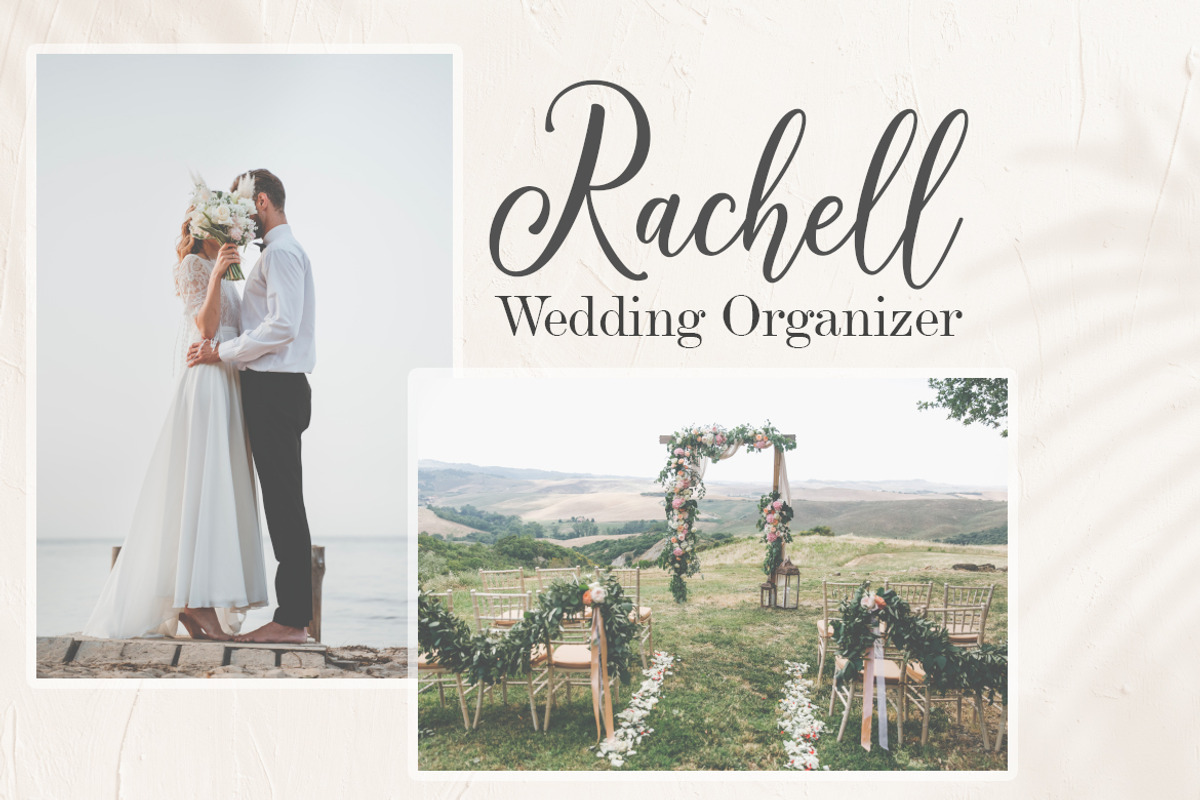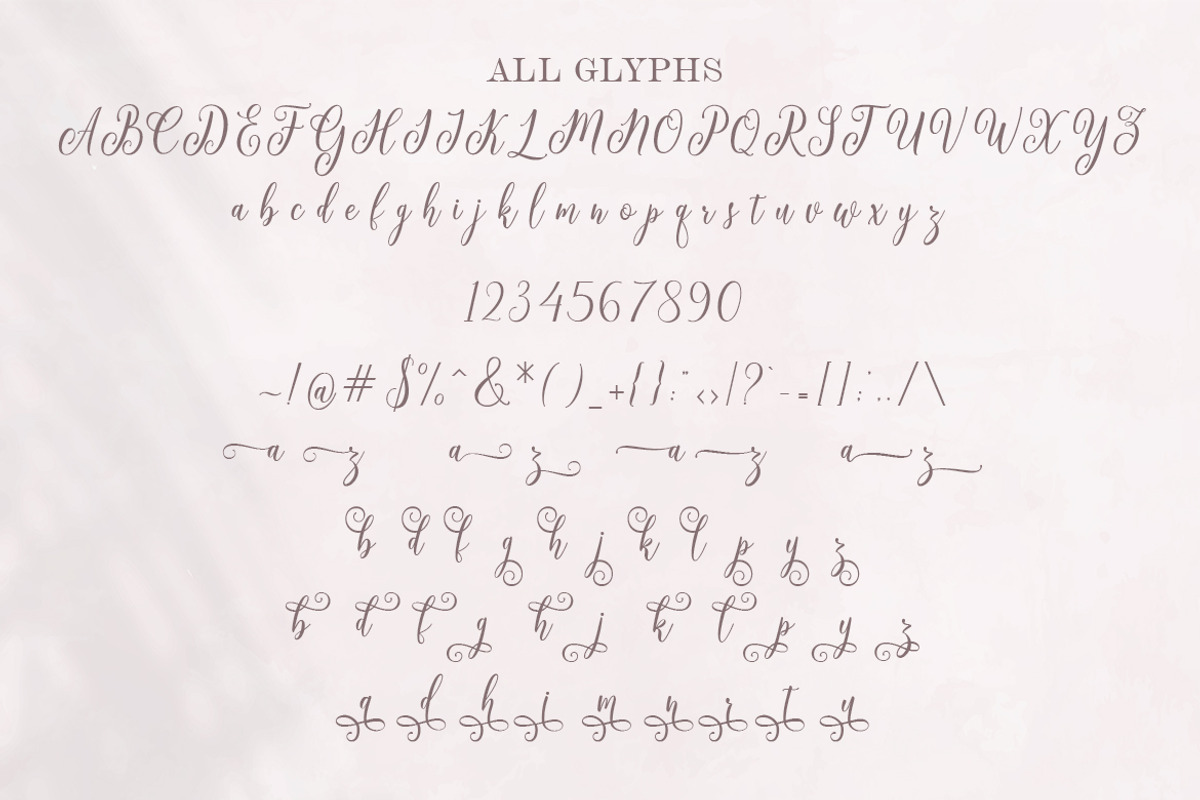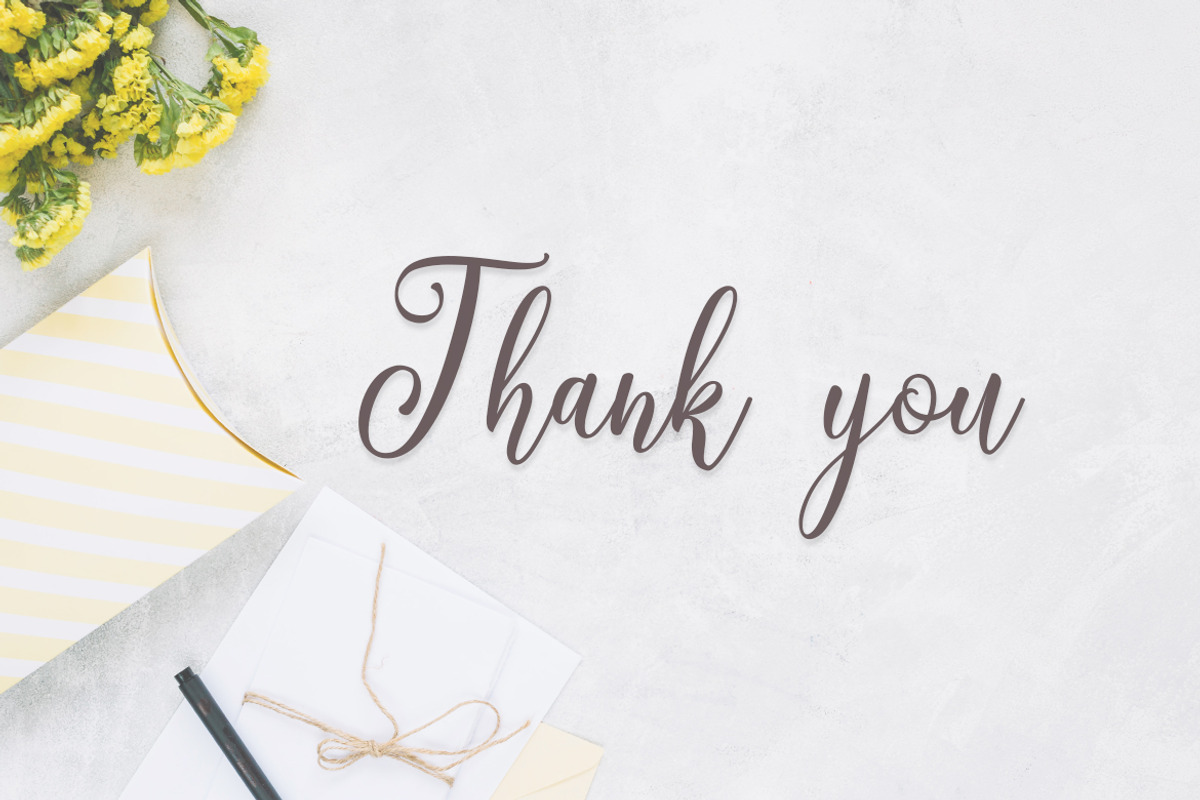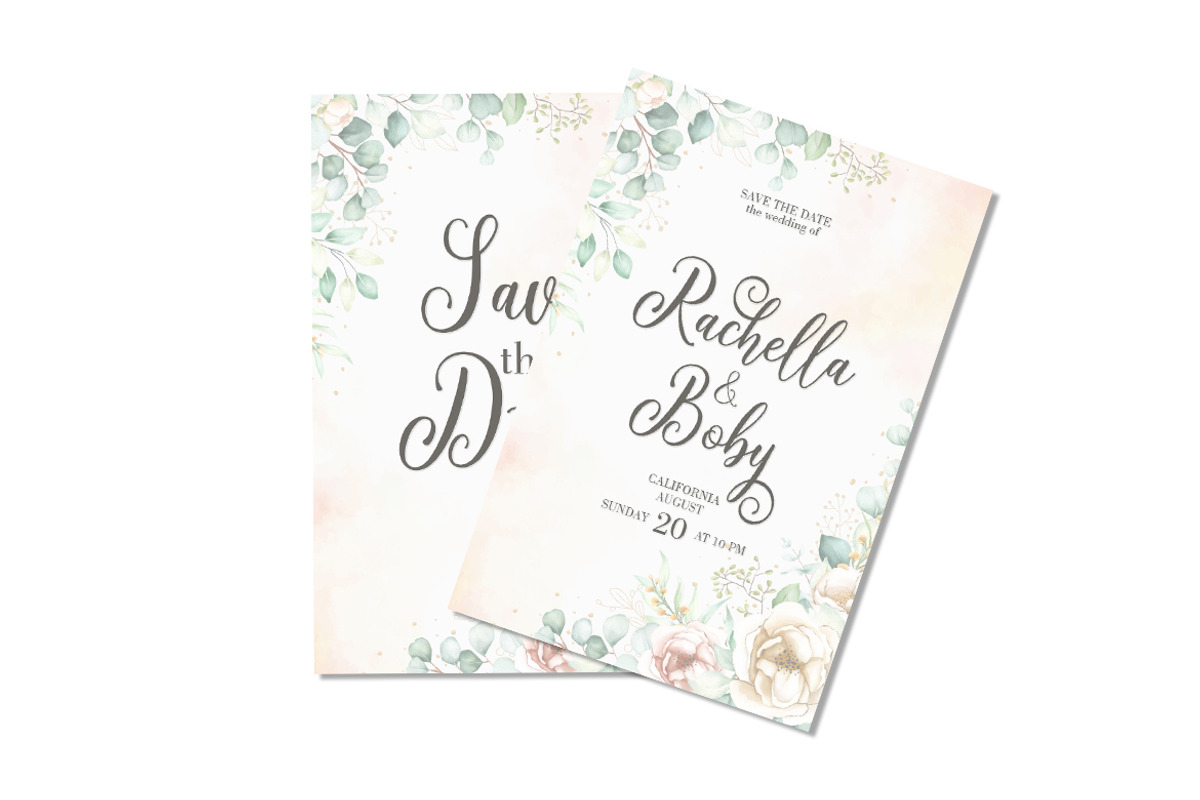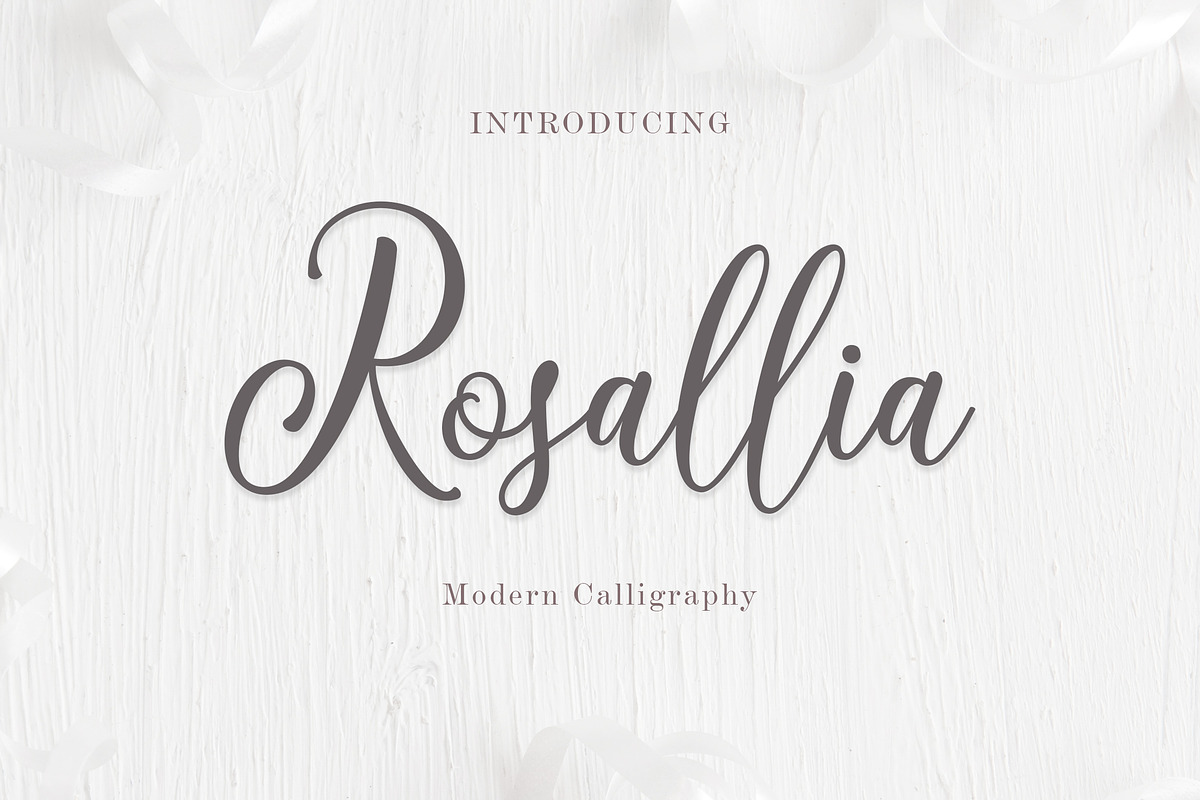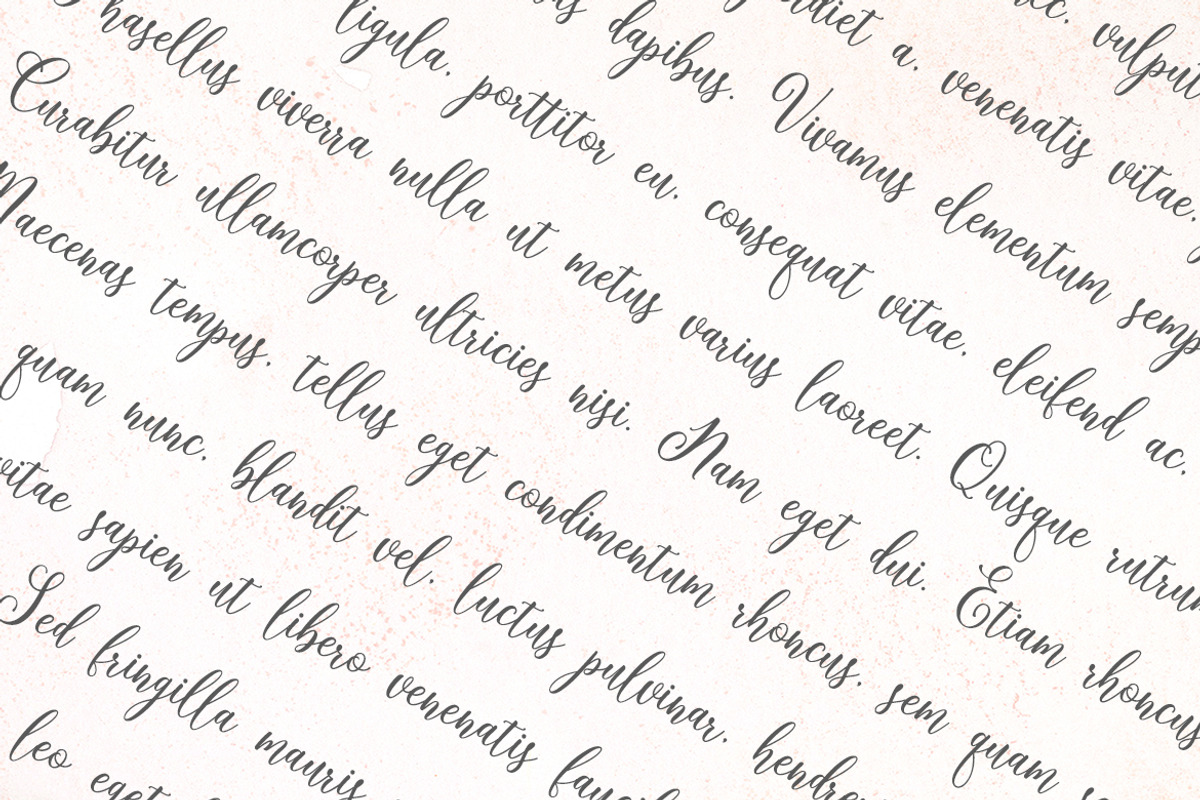
Rosallia
Immerse yourself in the captivating allure of Rosallia Script, a finely crafted modern font which marries a delicate touch with a noticeably flamboyant flourish. This gem springs from smooth, uninterrupted brushstrokes and gentle curves, transforming each lean letter into a manifestation of sophistication and finesse. Rosallia Script confidently anchors itself as the epitome of choice for those with discerning judgment, gracing them with a stylish richness. This font’s sophisticated distinction adds an enigmatic magic to sumptuous wedding invitations, lavish branding themes, and articulate editorial designs. Doubtlessly more than just a typeface, Rosallia Script stands as a vogue emblem.